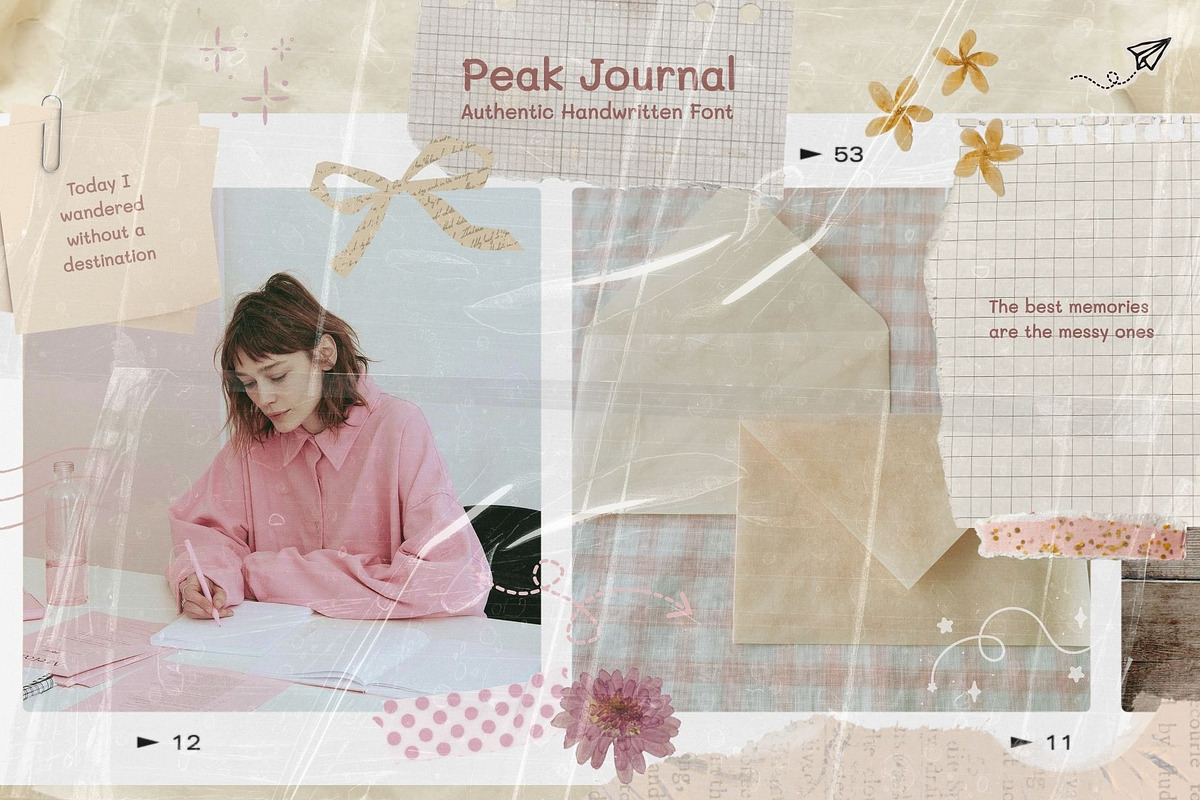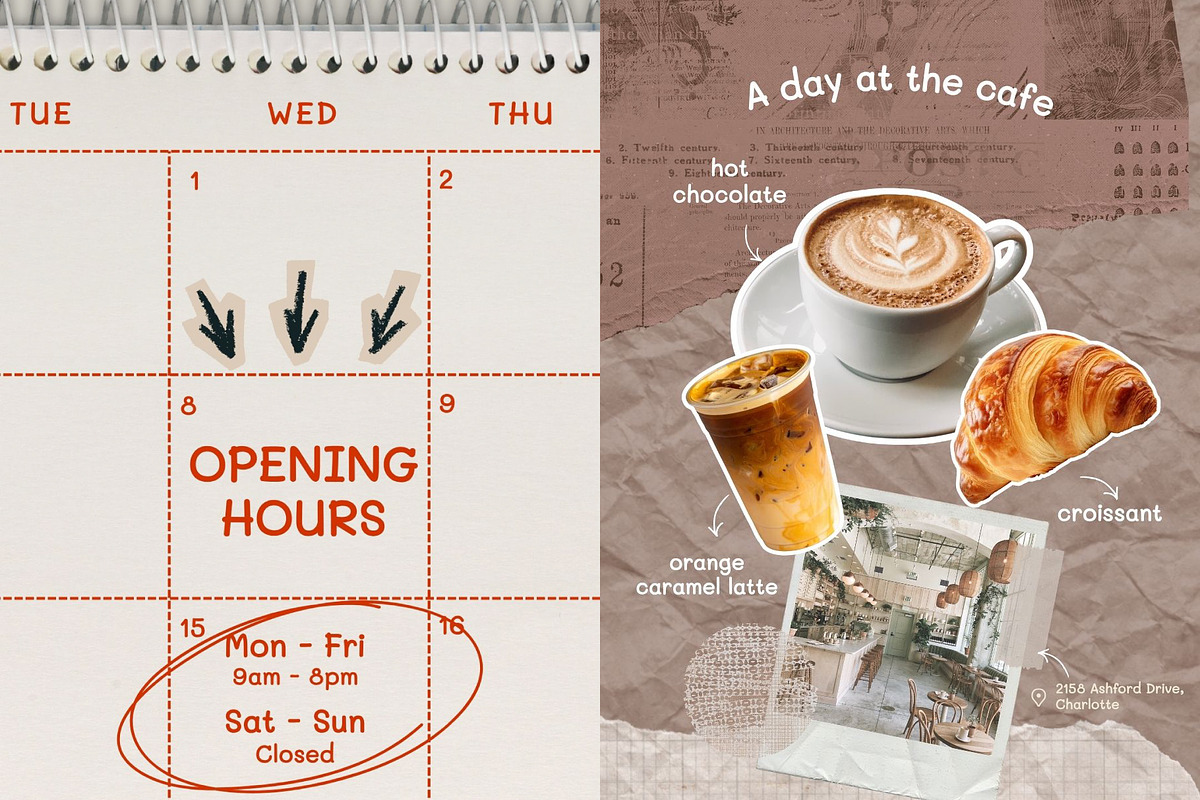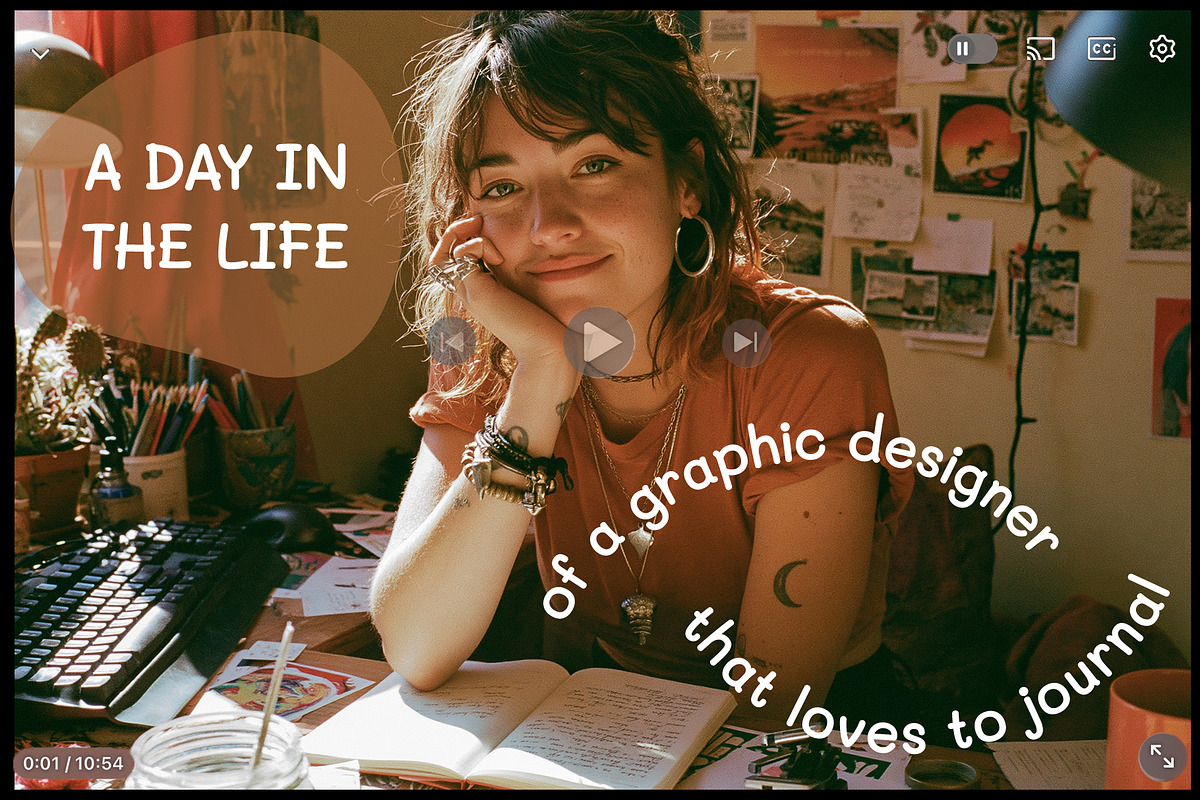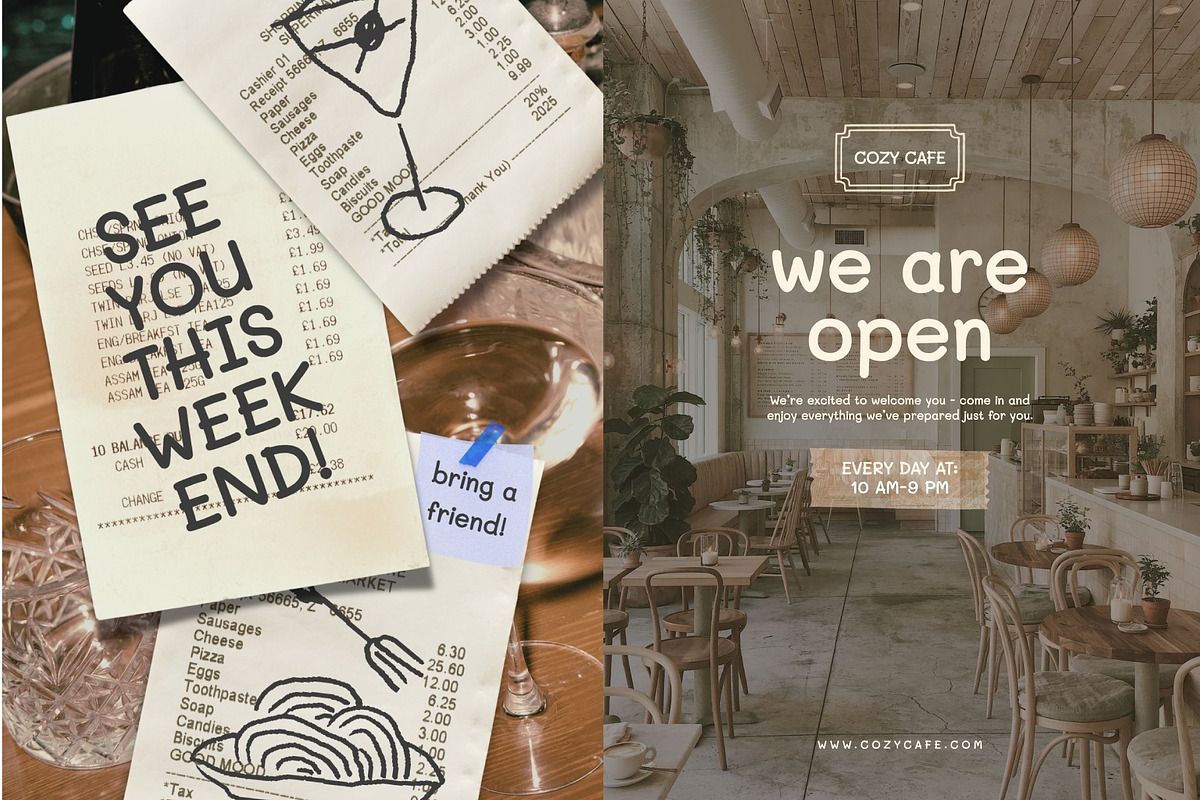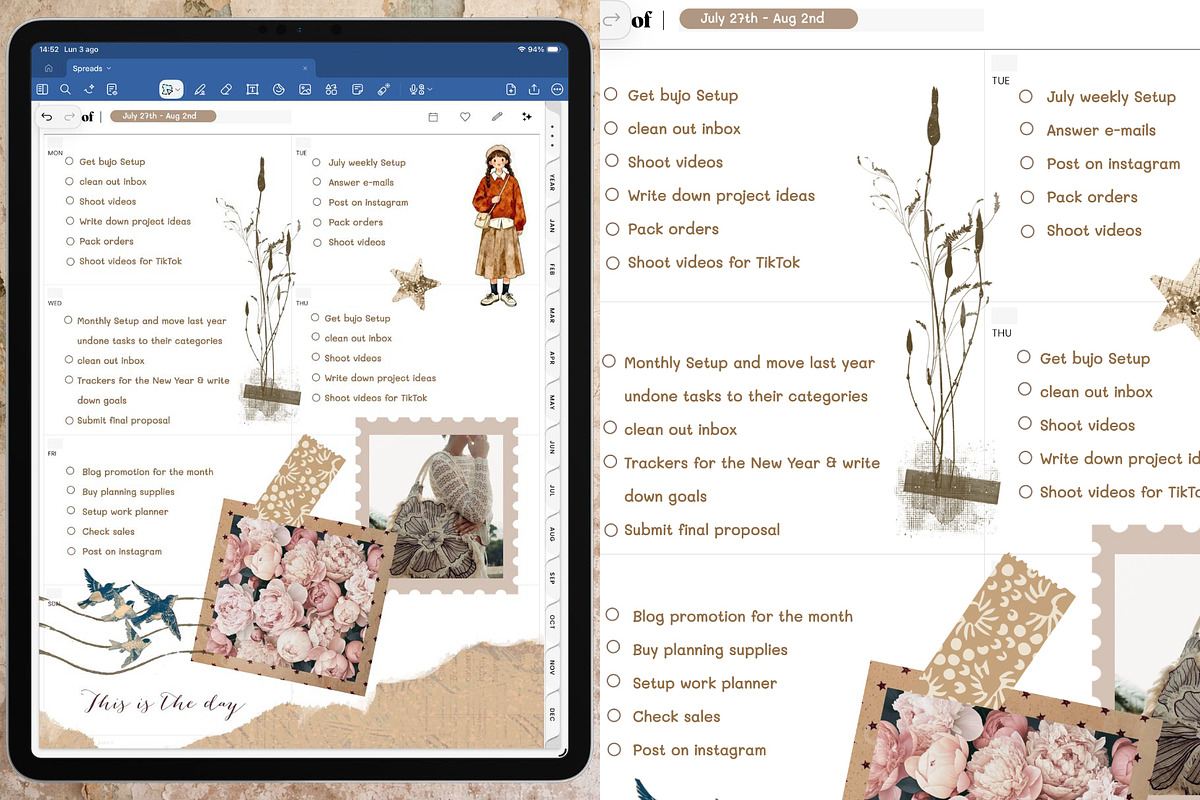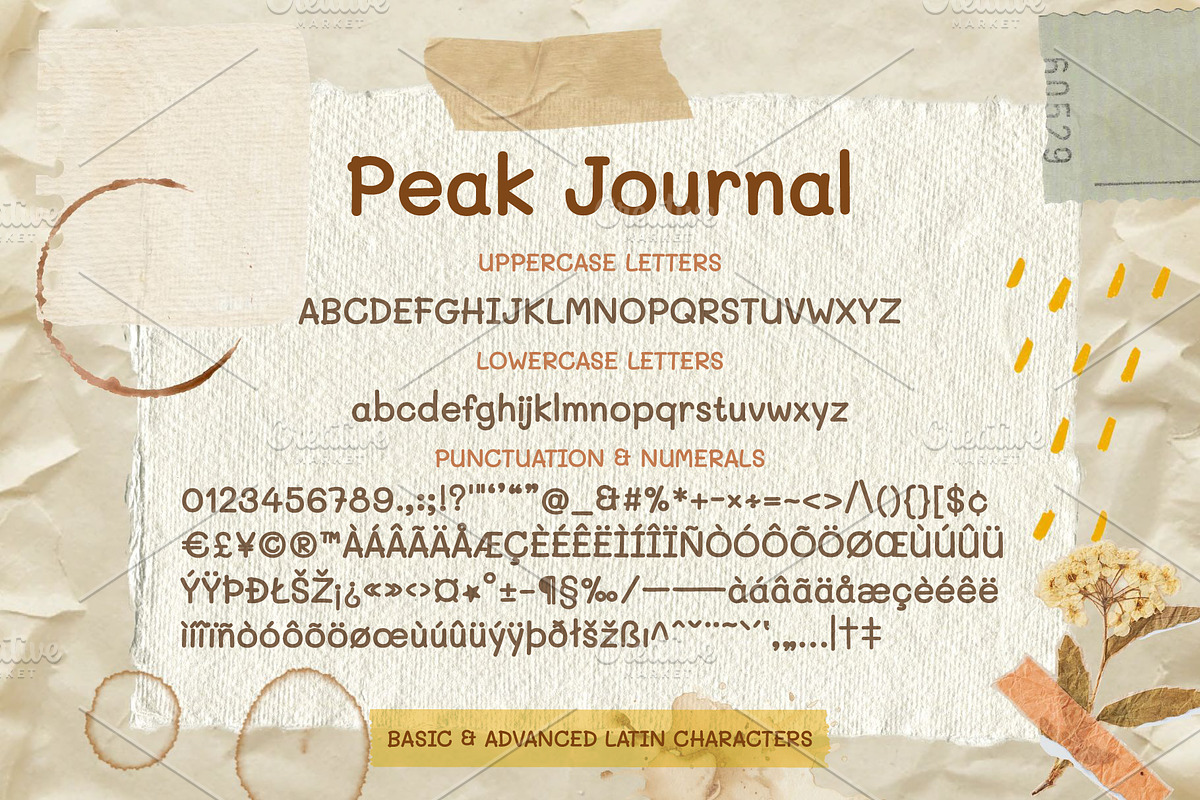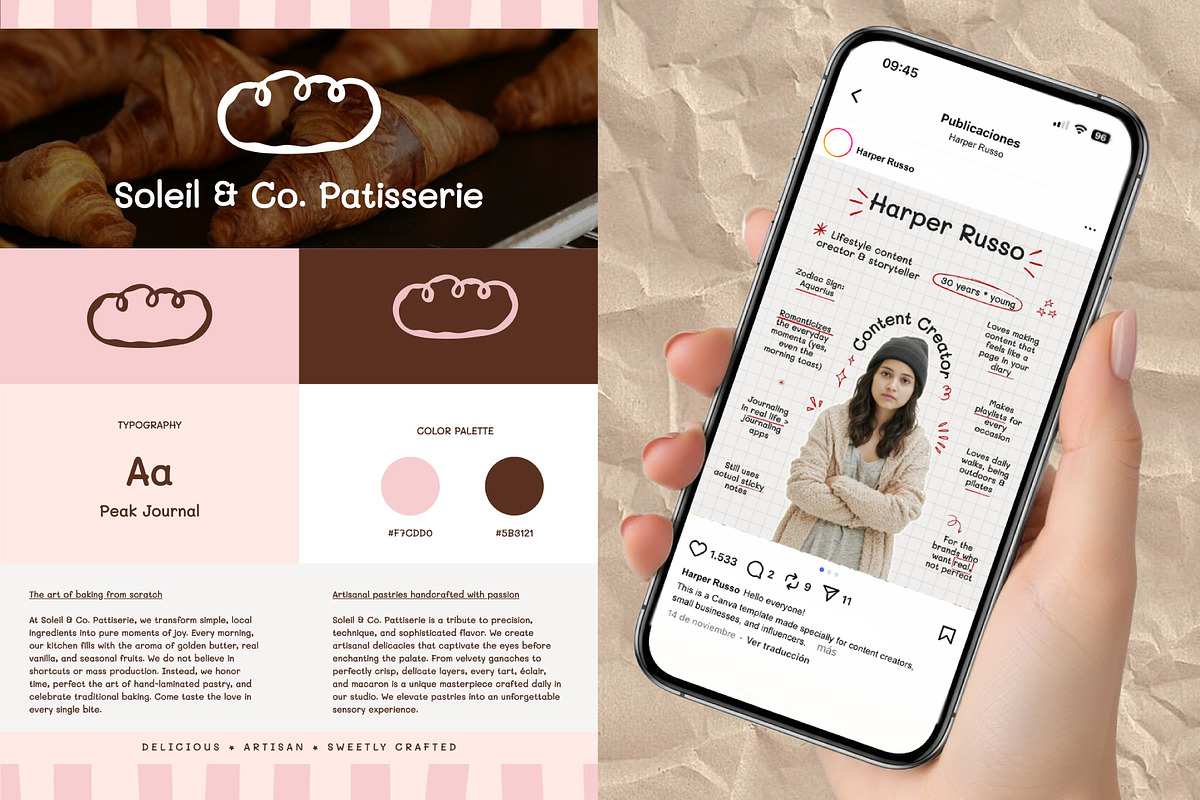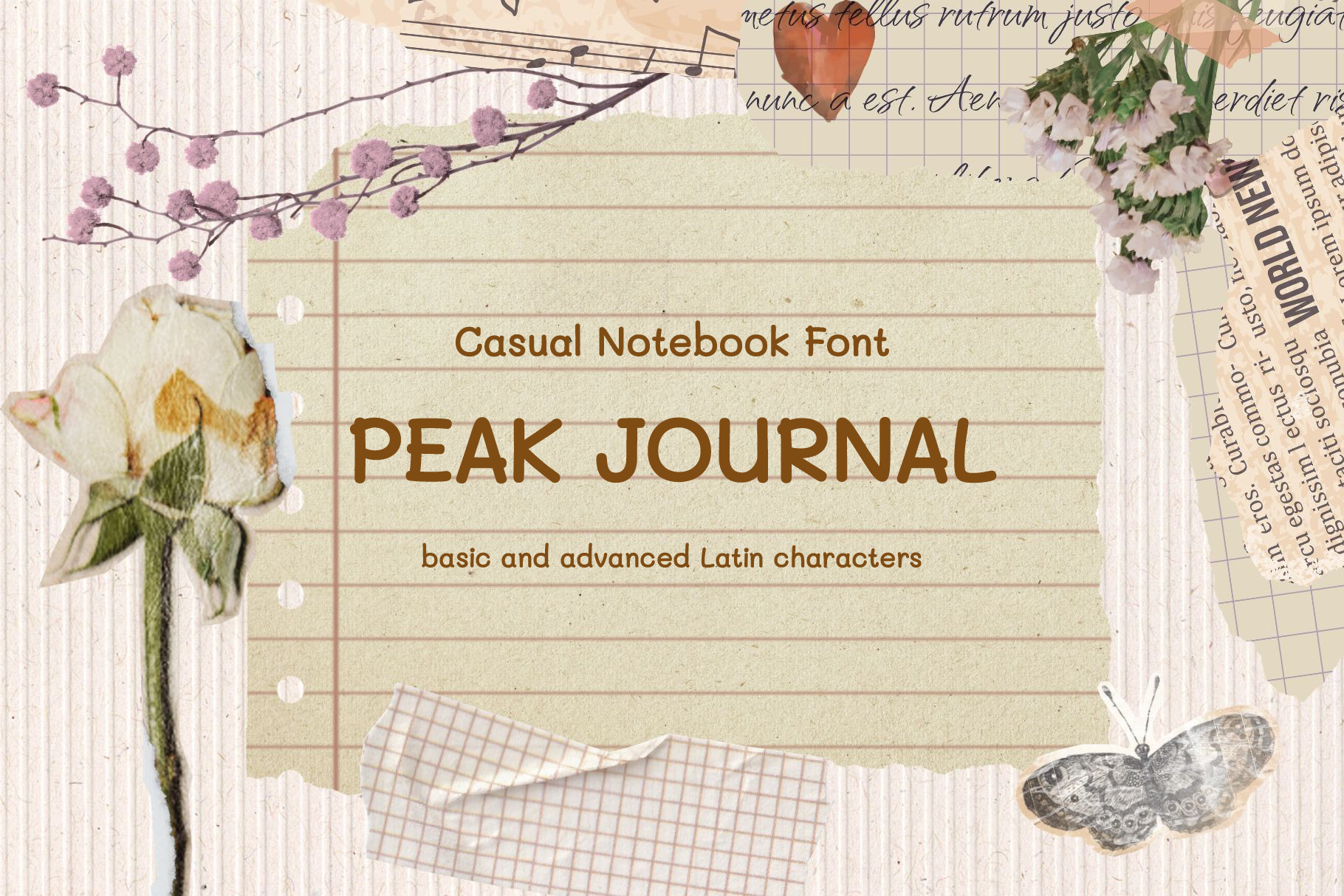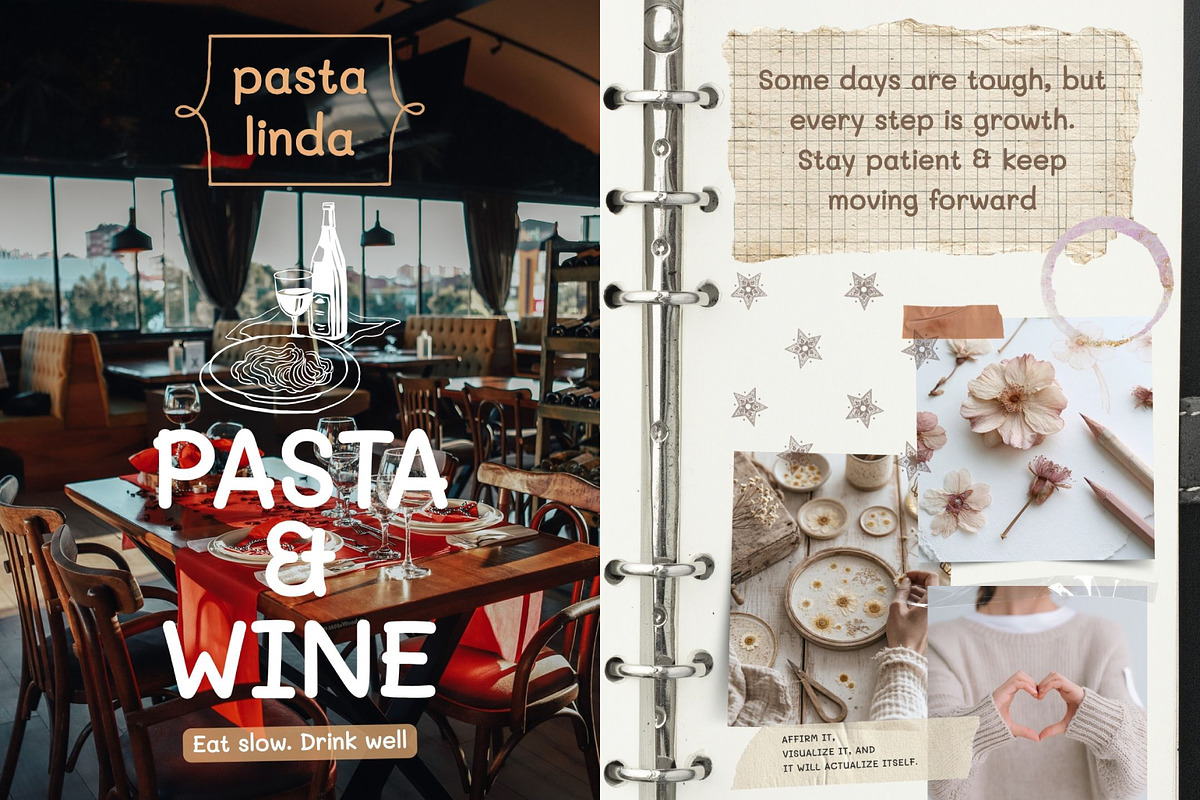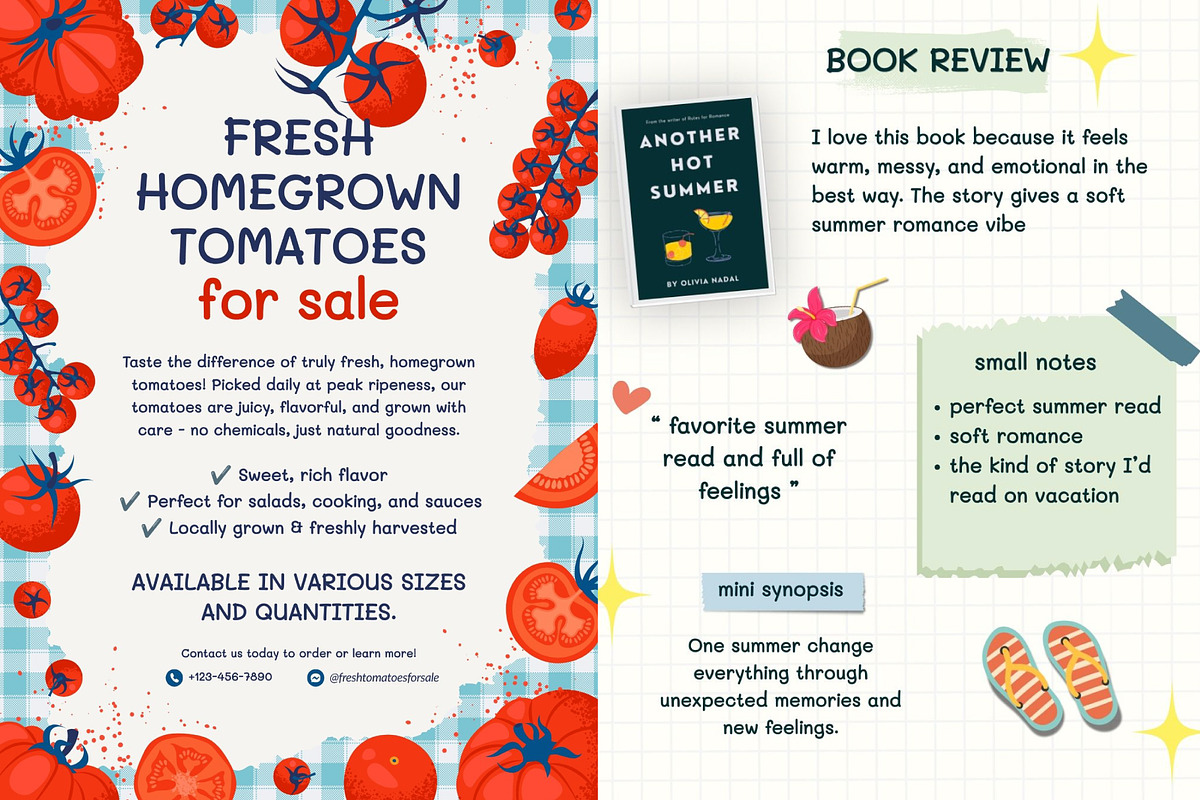
Peak Journal | Casual Notebook Font
Meet Peak Journal, a warm and authentic handwritten font inspired by cozy notebooks, travel journals, scrapbook pages, and everyday handwritten notes.
Designed to feel natural, friendly, and approachable, Peak Journal brings a personal touch to branding, packaging, stationery, social media graphics, planners, book covers, greeting cards, journals, and creative projects.
Its rounded letterforms and casual handwriting style create an inviting look that's perfect for modern lifestyle brands, handmade businesses, cafés, wellness products, and creative entrepreneurs.
Whether you're designing a journal cover, creating Pinterest graphics, building a scrapbook collection, or branding a small business, Peak Journal adds warmth and personality to every design.
Perfect for Journals & planners, Scrapbooking, Book covers, Branding, Packaging, Social media, Canva templates, Stickers, Greeting cards, Invitations, Quotes, Café menus, Lifestyle brands, Handmade products, Etsy shops
• Uppercase & lowercase
• Numbers & punctuation
• Basic & Extended Latin characters